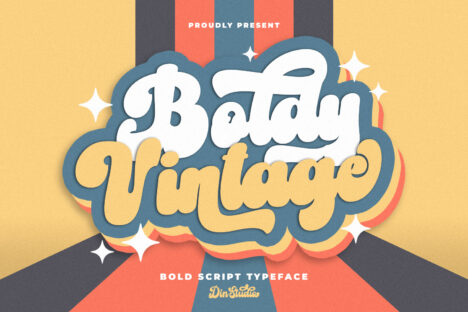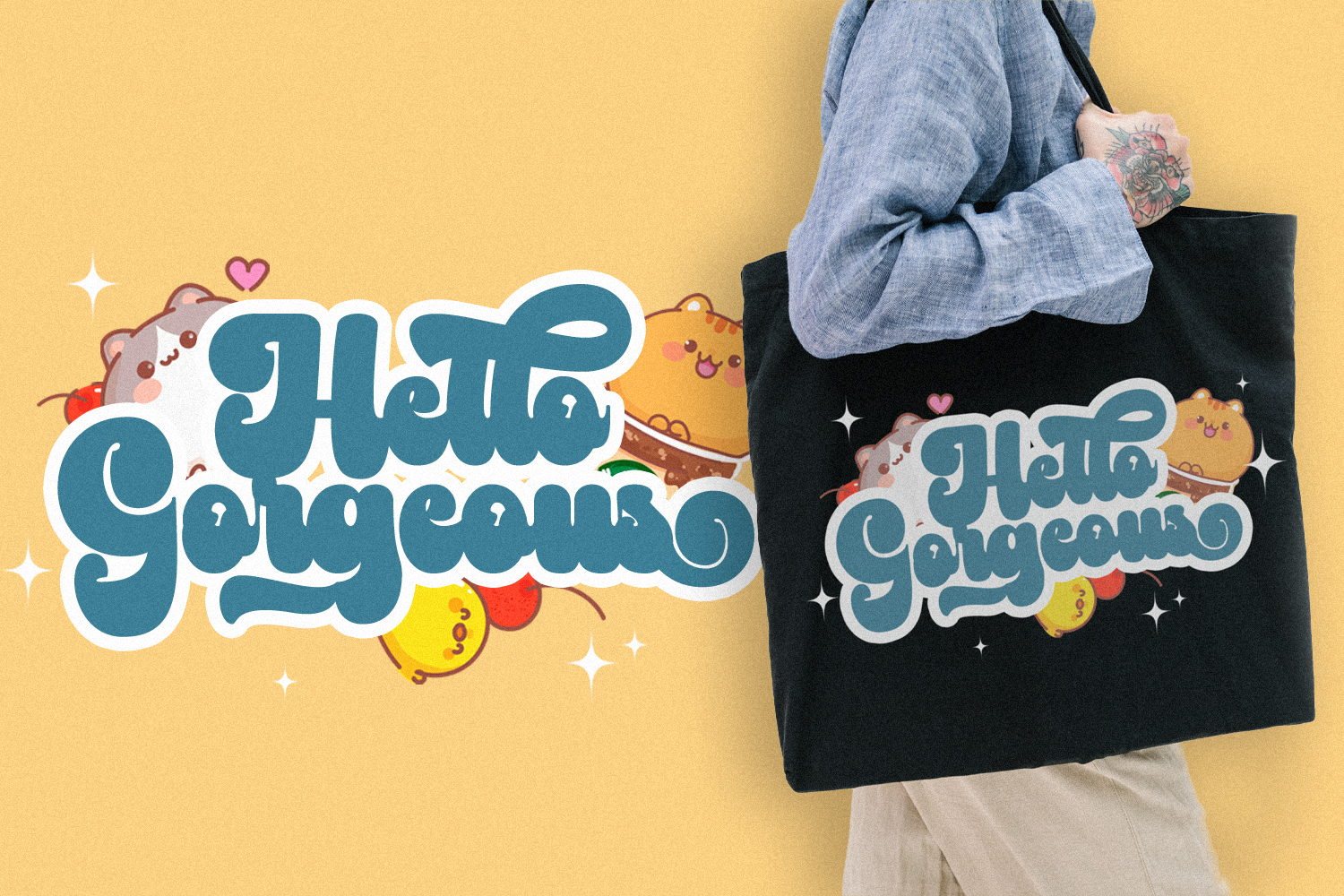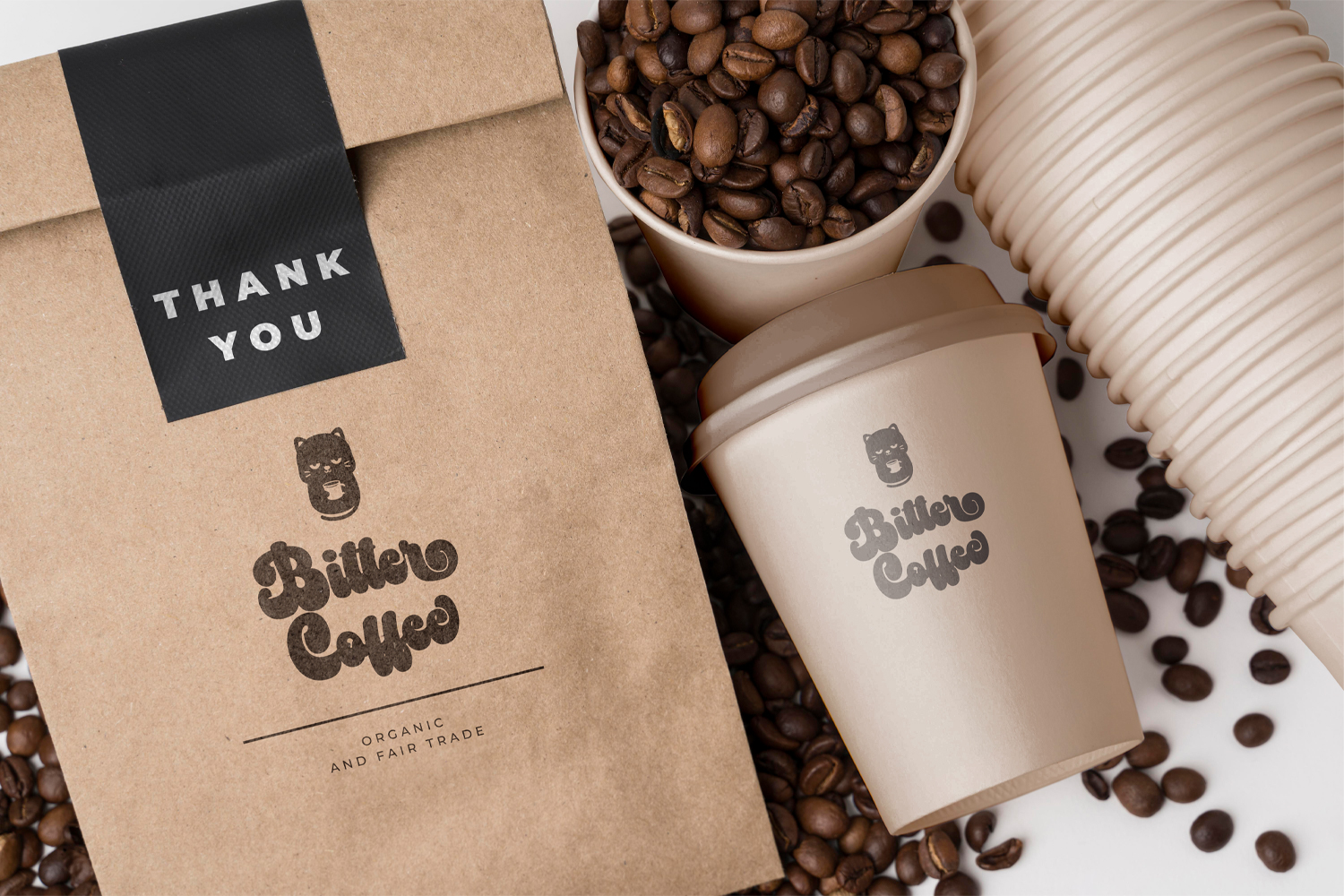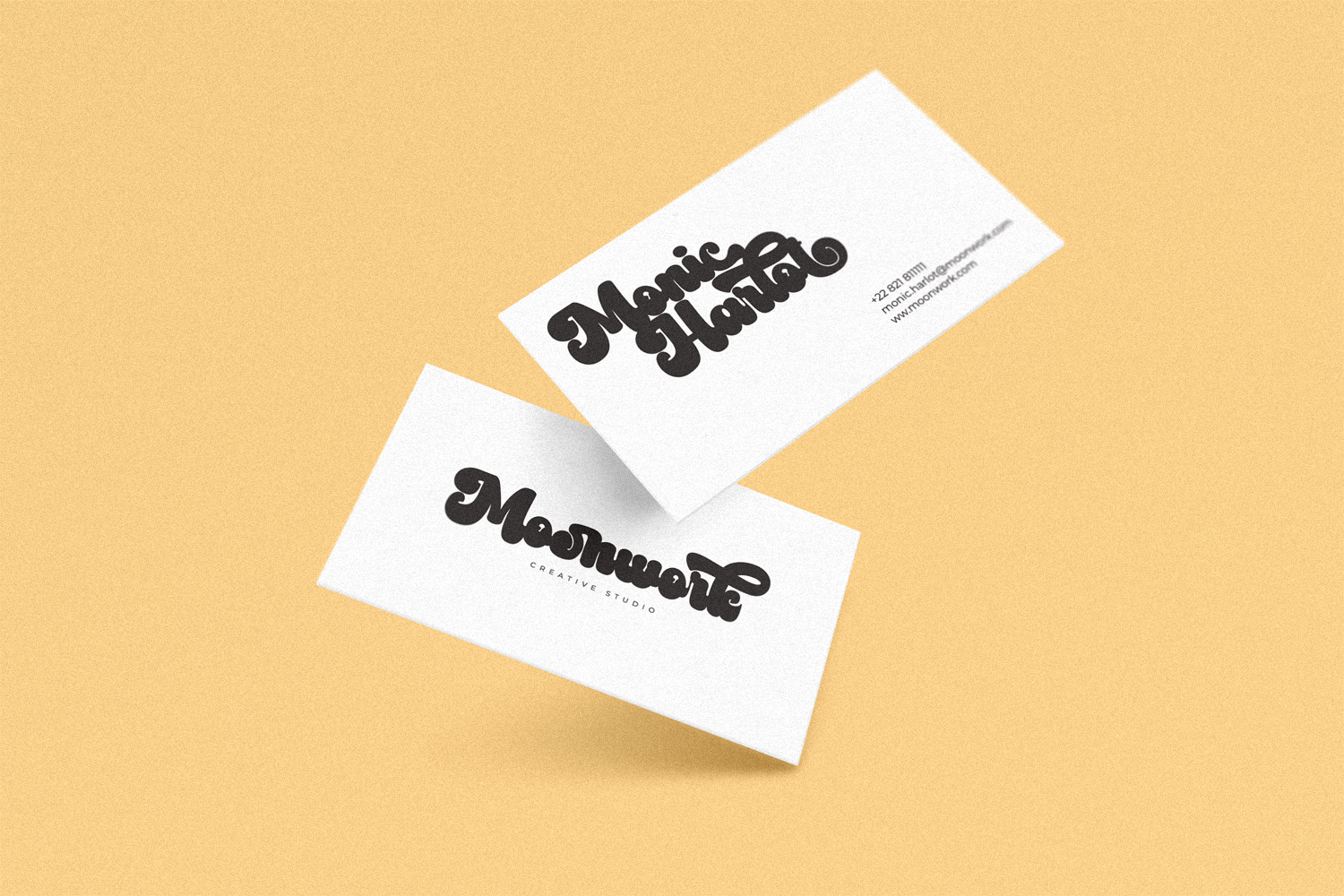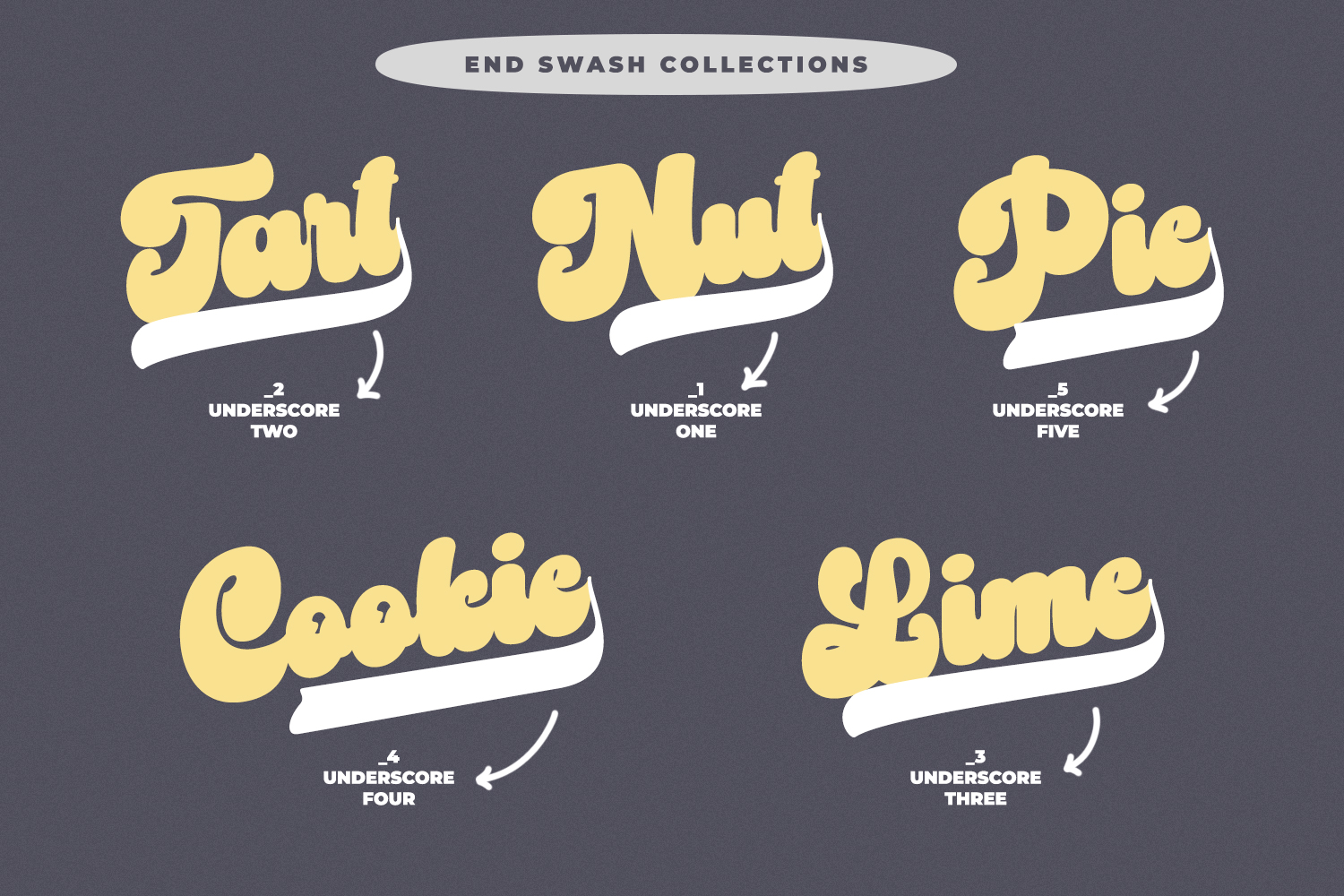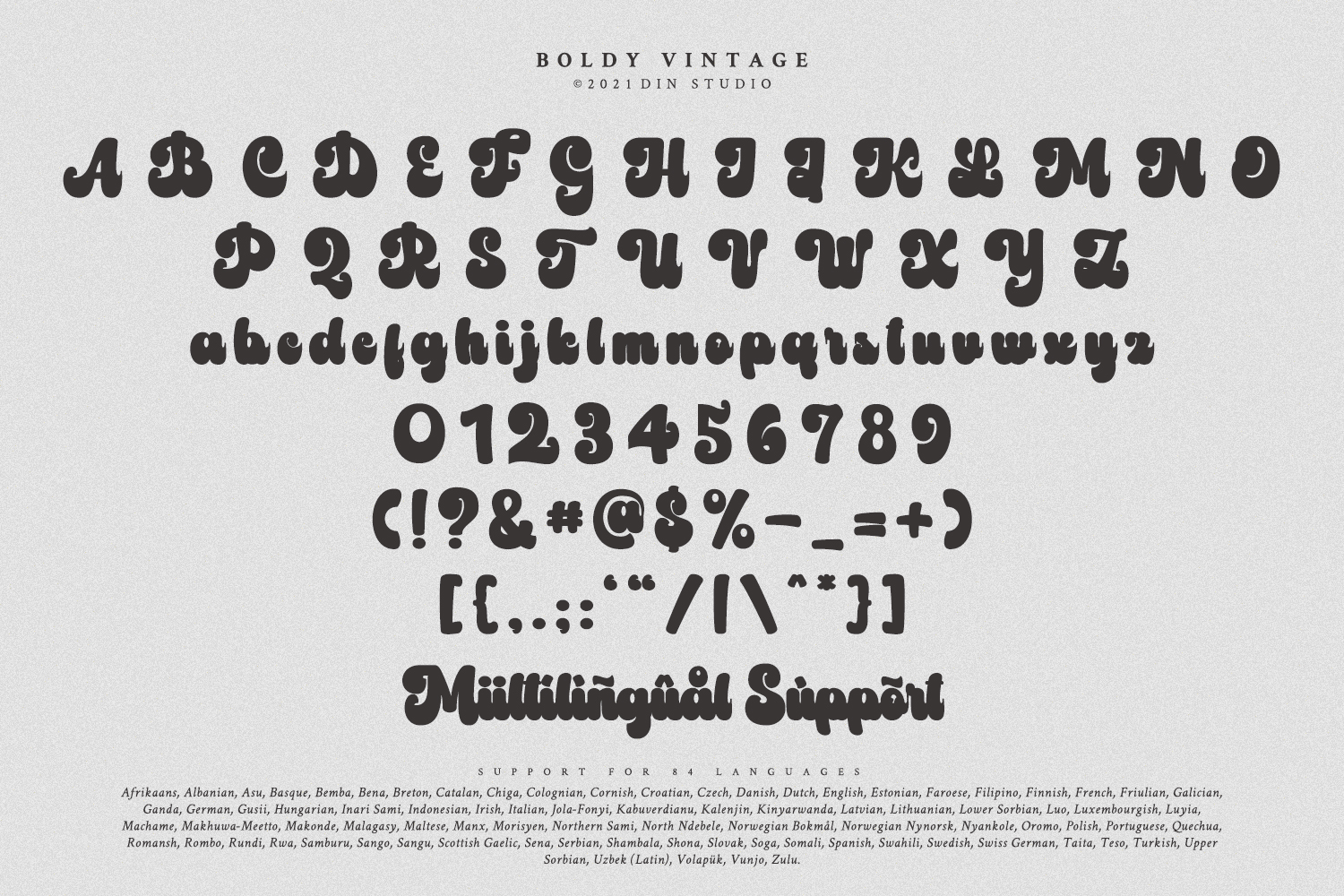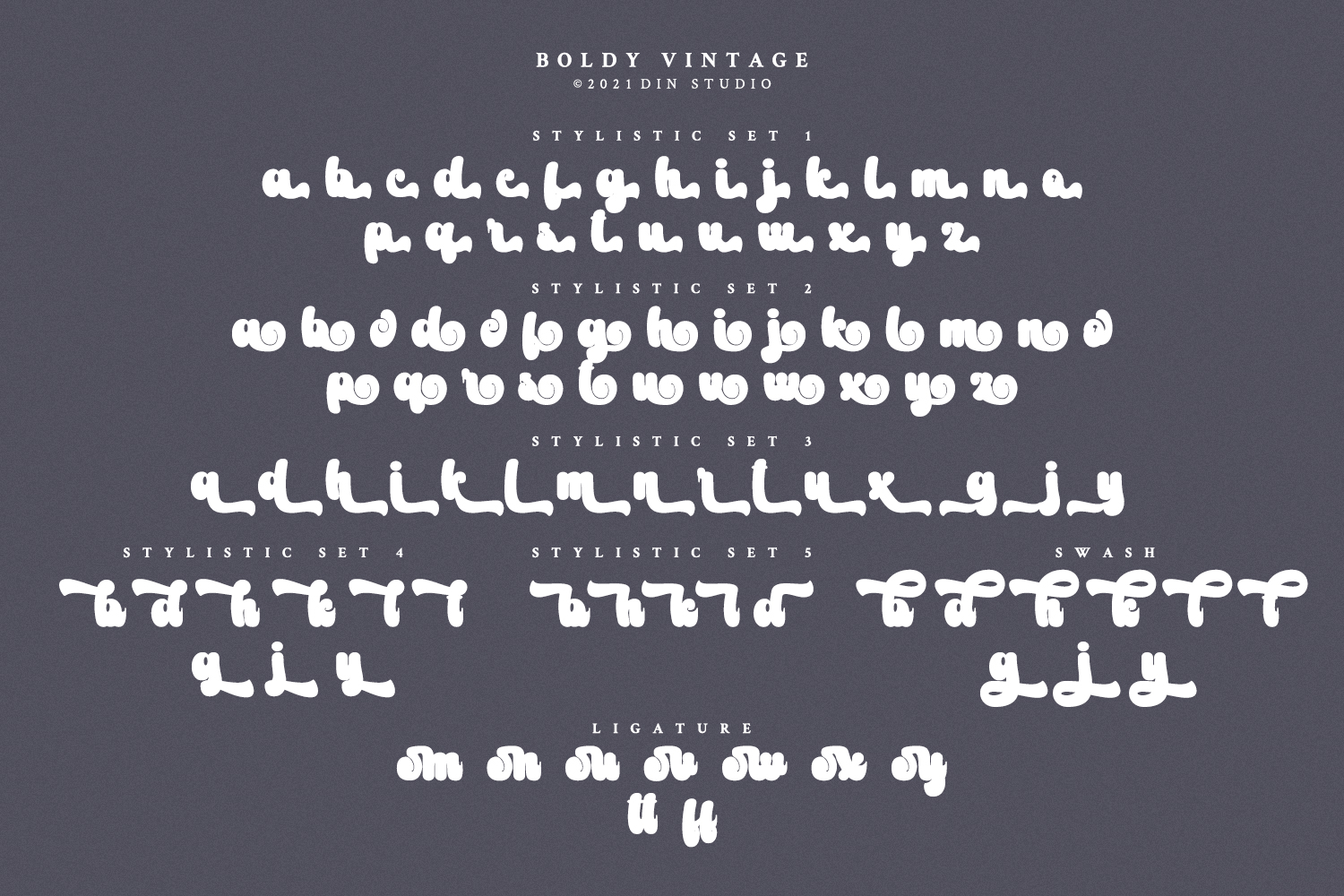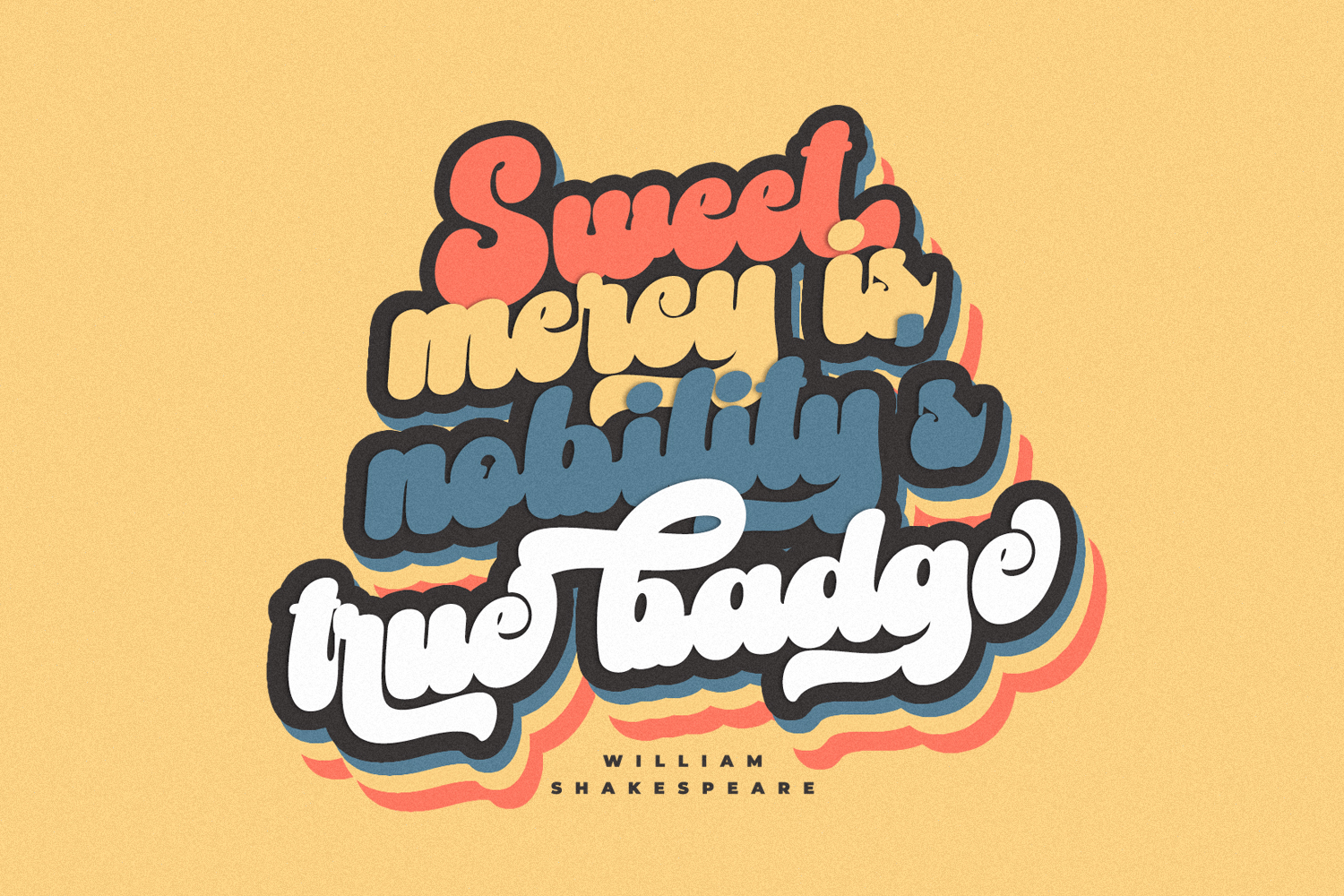
Looking for a fun and bold font to captivate your audience, clients, or party guests? If you need to create invitations, have a t-shirt branding company, or need to create a new menu – then this is the perfect font for you. Boldy Vintage – Bold Script Font.
Boldy Vintage is a bold, fun, and modern font. Every hand-drawn stroke and curve will delight and add brightness, modernity, and fun to wherever it’s placed. This bubble font is the best to maximize the amount of street vibe and playfulness. Ideal to create amazing headings, logos, menus, and social media graphics.
The font always includes Multilingual Supports to make your branding reach a global audience. See the previews above to get some inspiration on how you can use them. Enjoy the font!
Features include:
- Stylish Sets